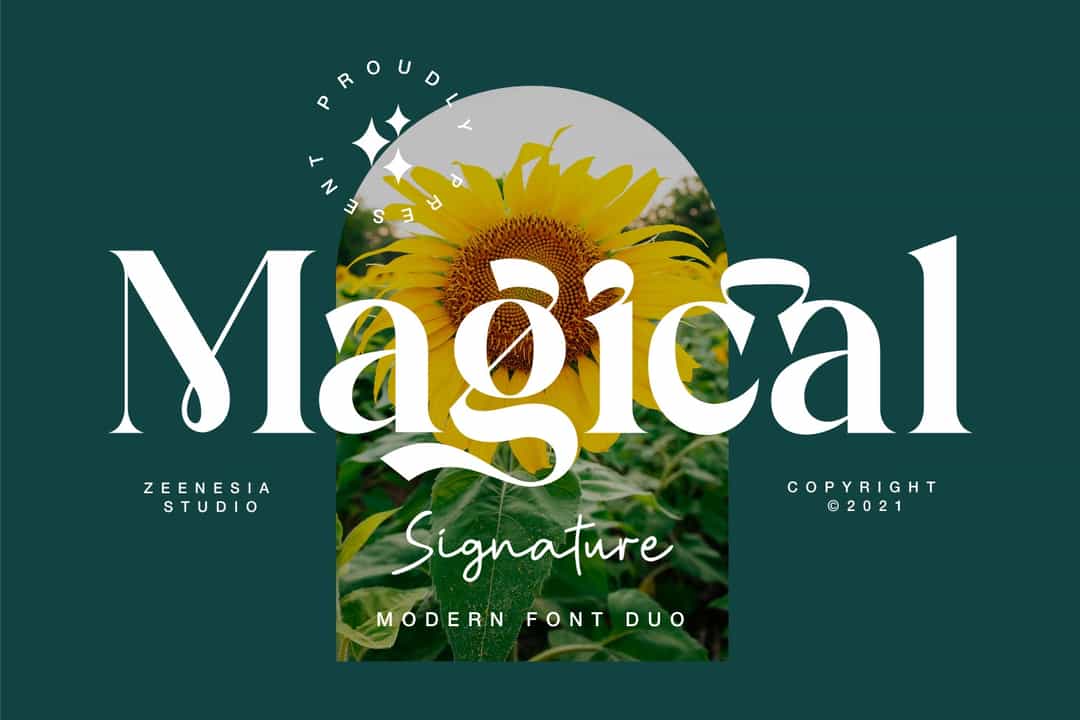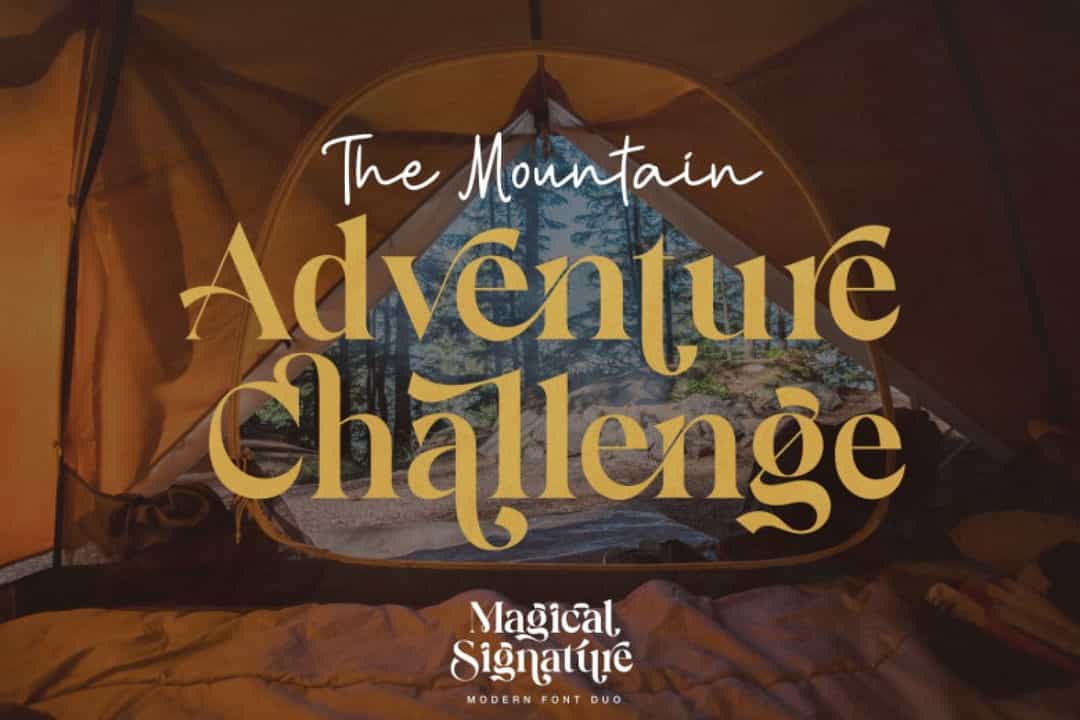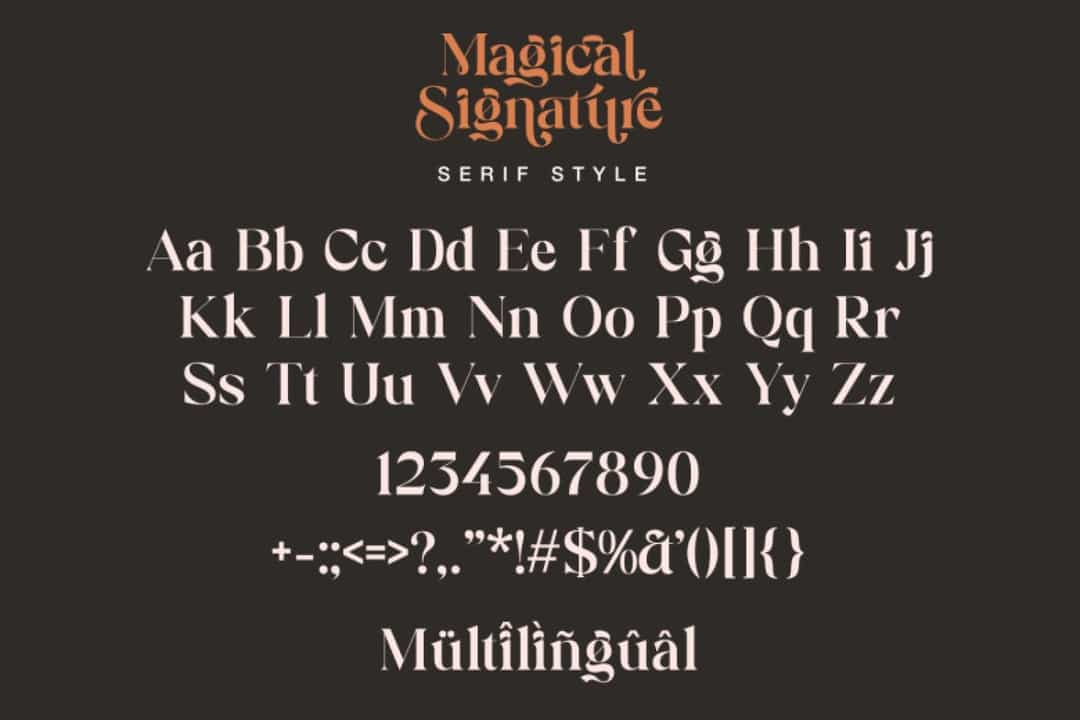
Discover Magical Font, part of the Serif collection—a versatile and unique font perfect for adding a personal touch to your projects. Download it for free and enjoy crafting designs with style, from invitations to social media posts. This font is available exclusively for personal use, giving you the freedom to create without limits. Unlock your creativity with Magical Font today!
Magical is a sleek serif font with an eye-catching appearance, designed by Zeenesia as part of her Display Serif collection and inspired by its logo. Care has been taken in creating this typeface to ensure high-end quality and luxurious look.